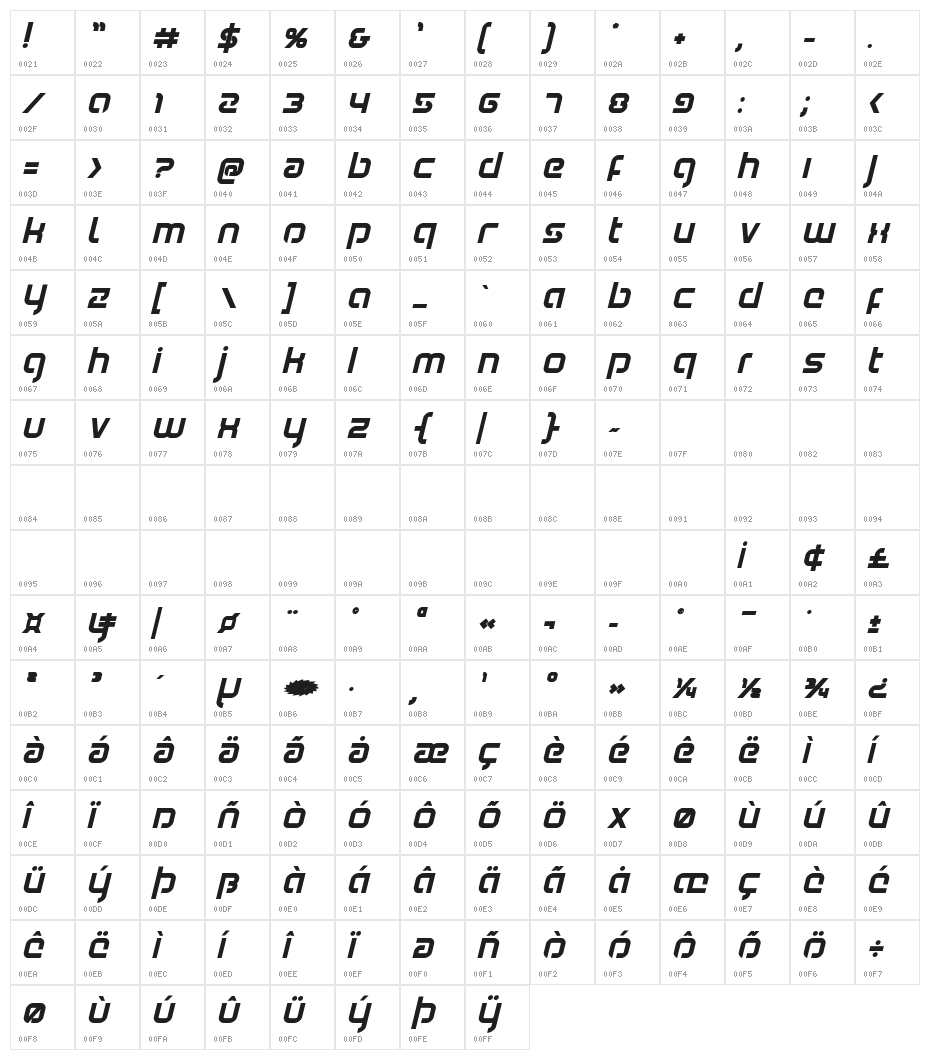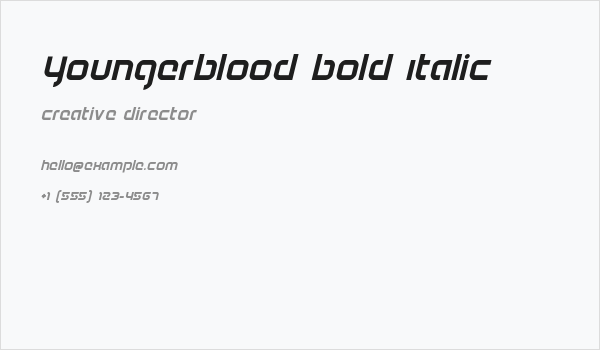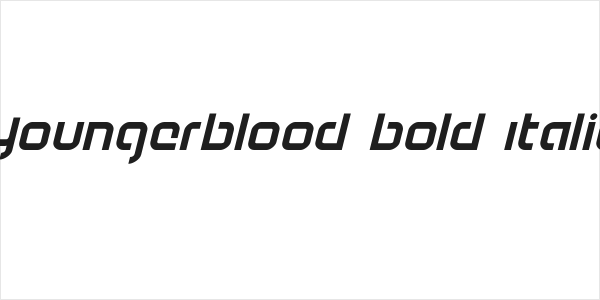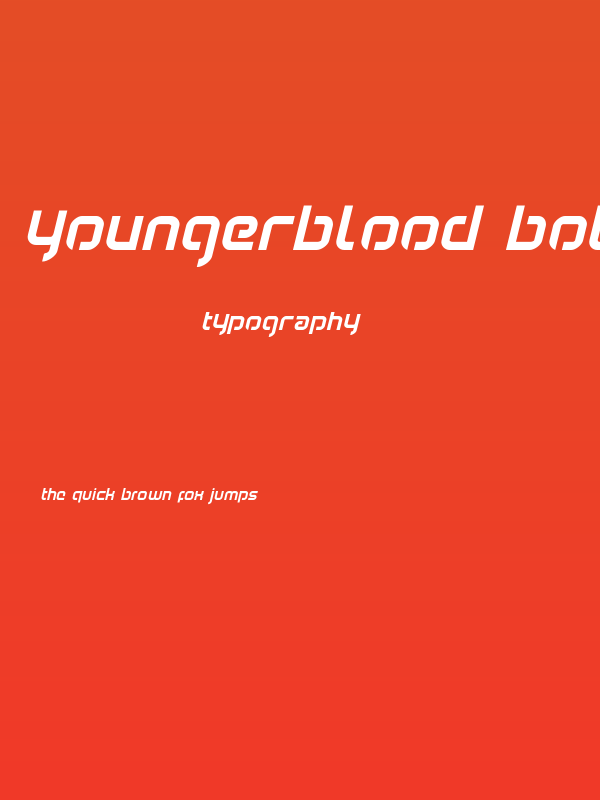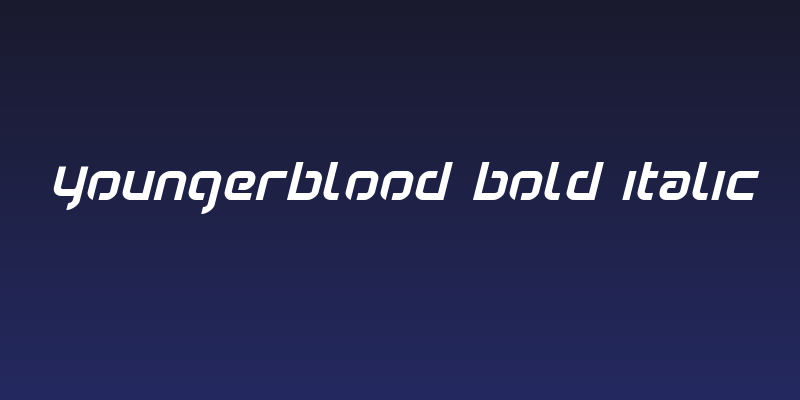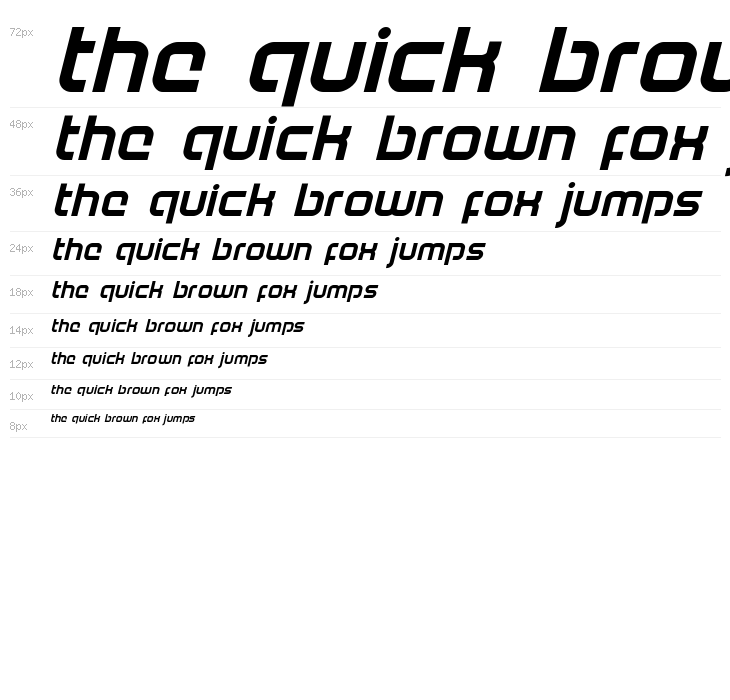
Youngerblood Bold Italic Font
Youngerblood Bold Italic Description
This font exhibits a bold and italicized style with a modern and dynamic appearance. The characters are slightly slanted, adding a sense of movement and energy. The strokes are thick and consistent, providing a strong visual impact. The design features rounded edges and smooth curves, contributing to its sleek and contemporary look. The font maintains a uniform weight throughout, ensuring readability and clarity. It is well-suited for attention-grabbing headlines and titles, where a bold statement is desired.
| Proposed Projects | Ideal for sports branding, dynamic posters, and modern web design. |